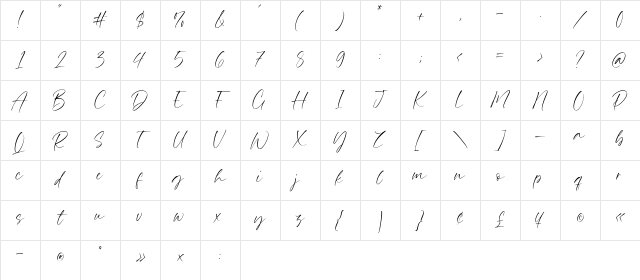
Prince August Regular Free Font
Prince August Regular
Designer: Timur Type Studio
Design Context for Prince August
Prince August is a composed and adaptable typeface that performs quietly and consistently across a wide range of design contexts.